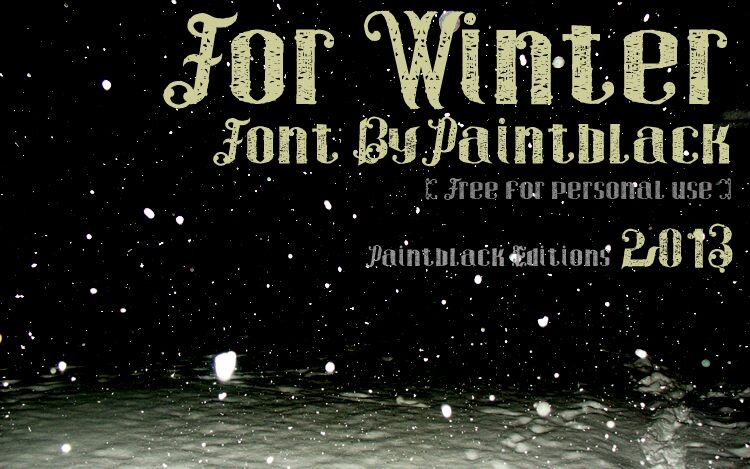
For Winter, created by Paintblack in 2013, is a free eroded decorative display font with an extravagant, old-world silhouette. Tall, dark letterforms sprout looping curls and bulbous flourishes, and their surfaces carry a scratched, chipped texture. The ornament is dense and unruly.
Its theatrical curves suit gothic music posters and fantasy event graphics, but the weathered finish also gives craft beverage packaging a rough, hand-printed edge. For boutique branding and merchandise, the letters can function as an illustrated emblem, turning a name into an ornate product identity.